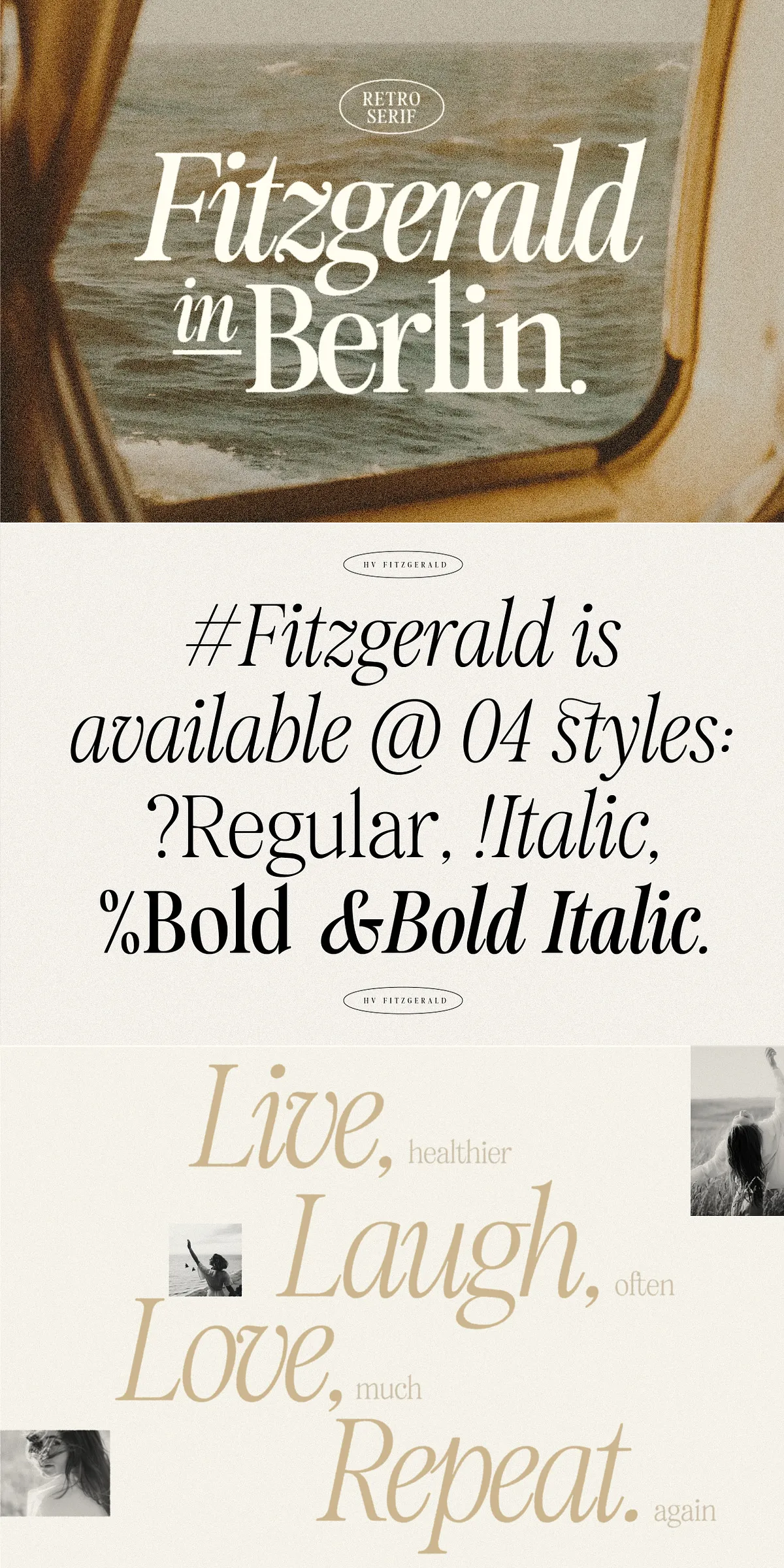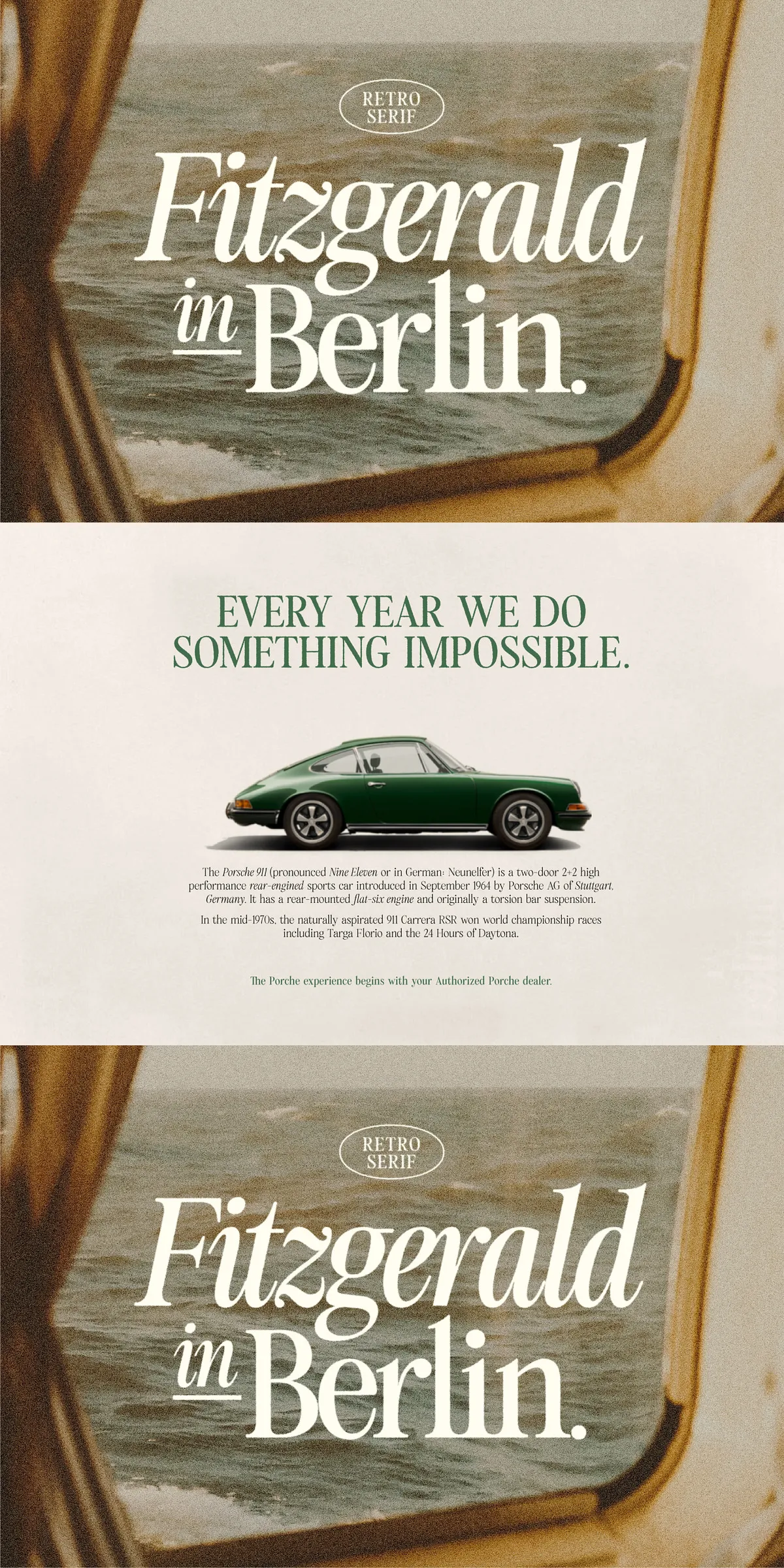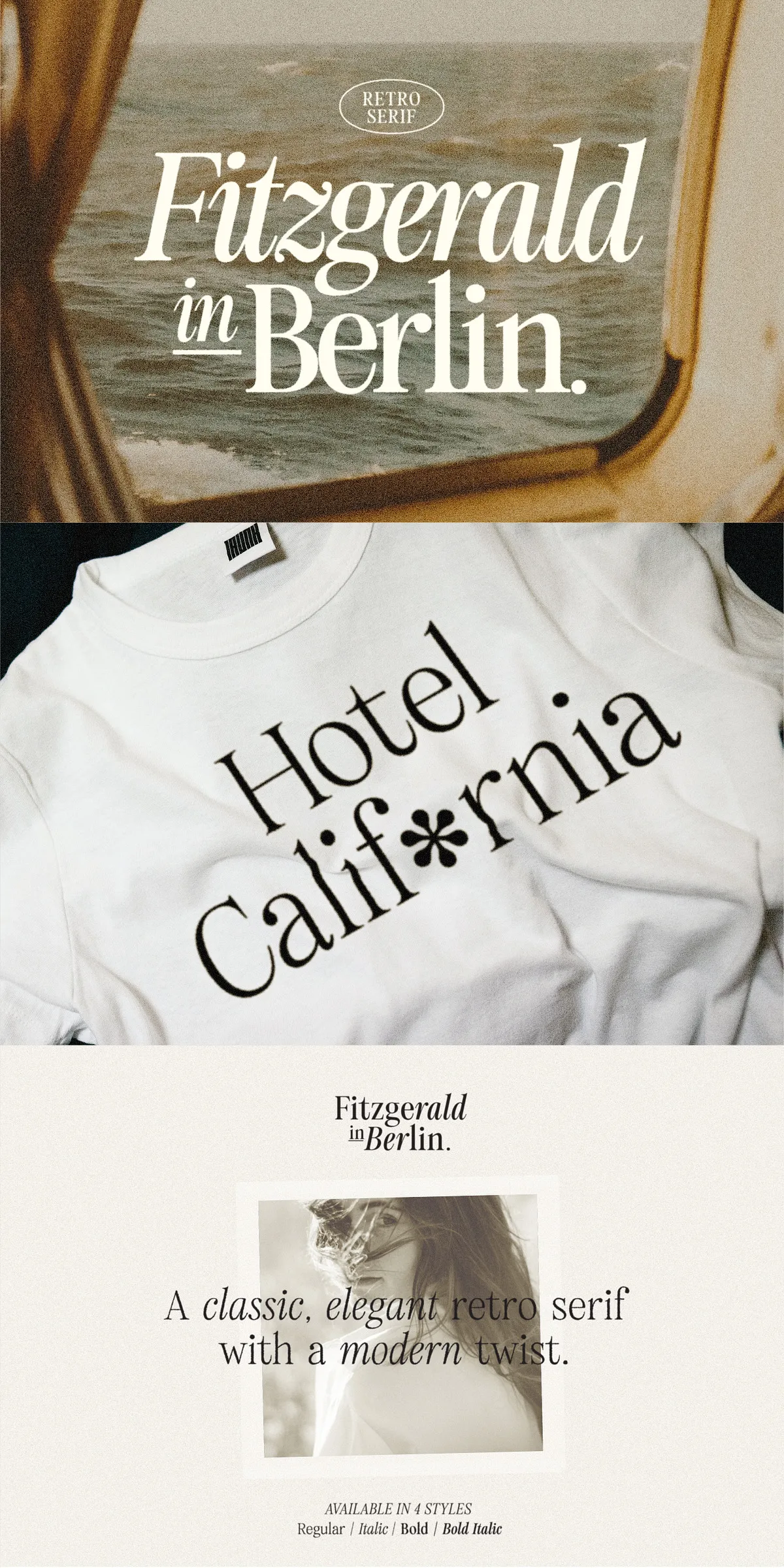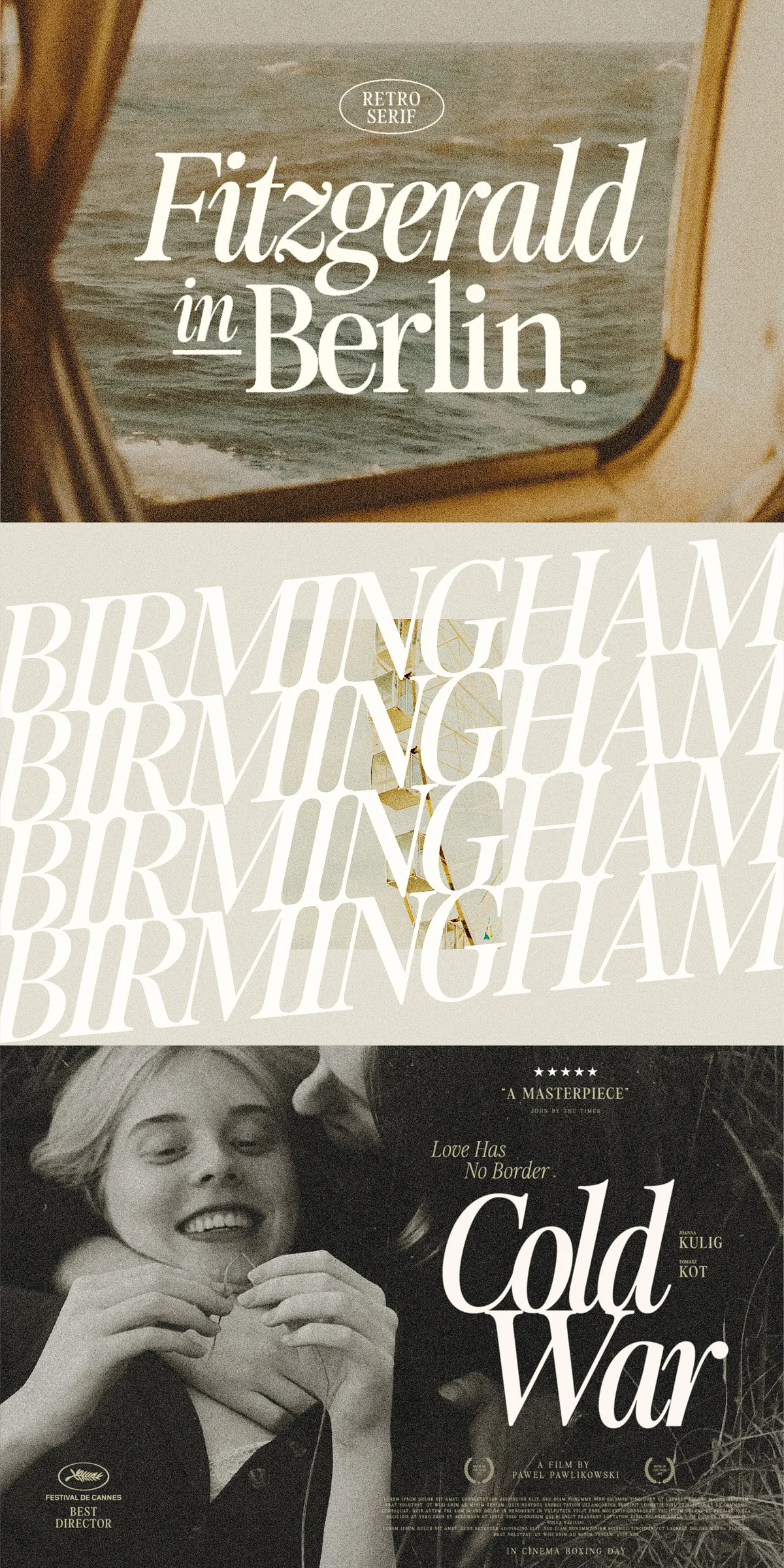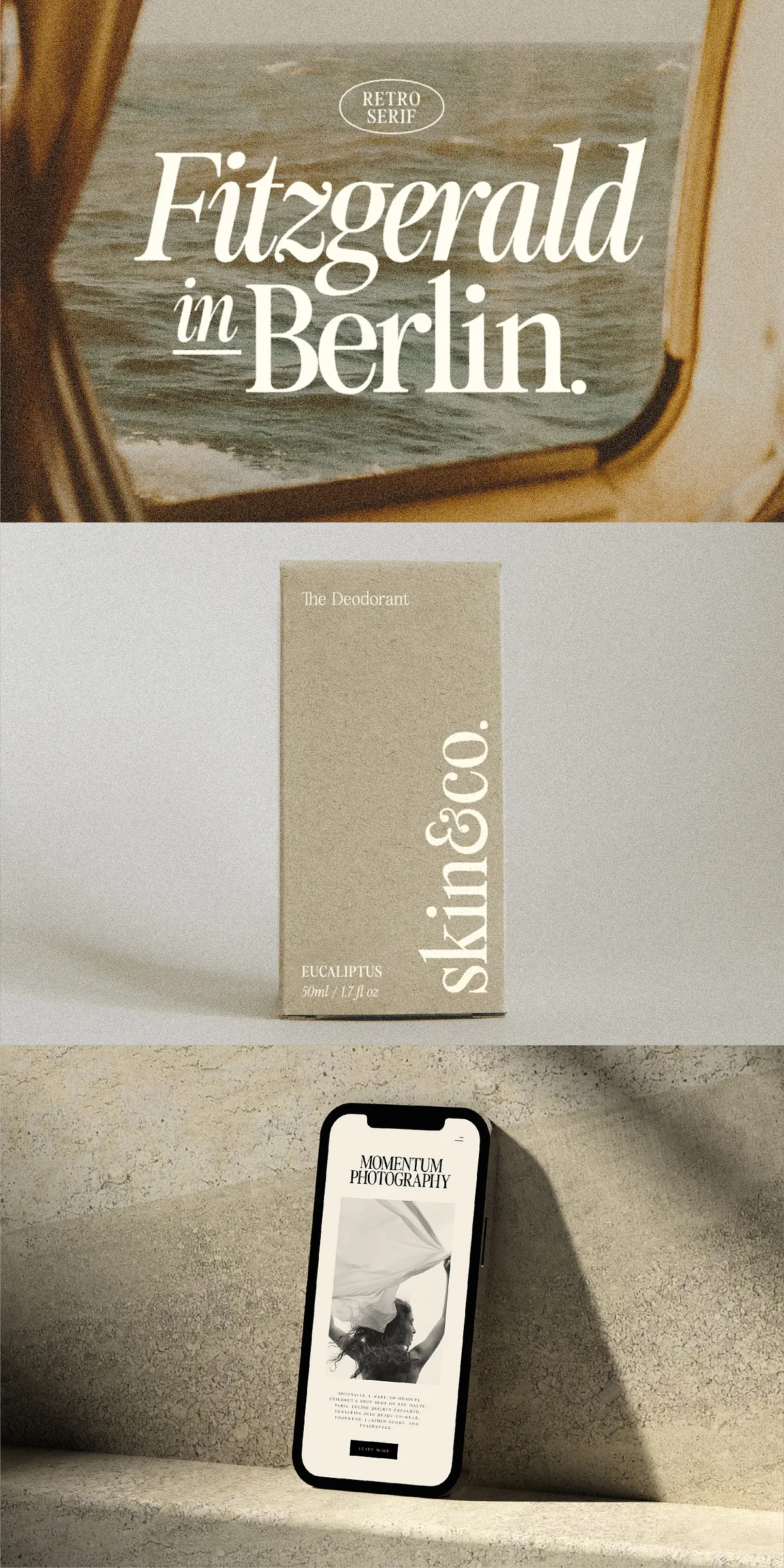
Fitzgerald – Classic Retro Serif
Step into the golden era of design with Fitzgerald — a bold fusion of classic elegance and modern precision. This retro serif font doesn’t just evoke nostalgia; it redefines it. Engineered for both high-impact displays and clean body text, Fitzgerald delivers outstanding readability without sacrificing personality. Whether you’re crafting bold headlines, editorial layouts, luxury packaging, or sleek logos, Fitzgerald commands attention with timeless sophistication.
Why Fitzgerald Is the Premier Choice for Retro-Inspired Design
Fitzgerald is more than a typeface — it’s a design statement. It draws inspiration from the sleek mid-century aesthetics making a global comeback, blending vintage charm with contemporary clarity. The result? A font family that feels familiar yet refreshingly forward-looking — ideal for brands and creatives who want to stand out without leaning too hard on clichés.
Fitzgerald’s Premium Font Collection: Every Style You Need
Empower your projects with the complete Fitzgerald family, including:
• Fitzgerald Regular — Clean, confident, and highly legible. Perfect as a base for body text or subtle headings.
• Fitzgerald Italic — Adds dynamic flair with gracefully slanted characters. Ideal for emphasis, quotes, and creative accents.
• Fitzgerald Bold — Amplifies impact with strong, structured strokes. Designed to dominate headlines and logos.
• Fitzgerald Bold Italic — The ultimate powerhouse combination: bold presence with elegant slant. Use for standout callouts and dramatic designs.
With full diacritic coverage, Fitzgerald ensures flawless typography across diverse linguistic contexts — making it perfect for international campaigns, multilingual publications, and global branding.
Unlock Advanced Typography Features for Professional Results
Fitzgerald isn’t just about style — it’s built for control. Leverage its OpenType features to elevate your design from good to exceptional:
Activate Ligatures and Stylistic Alternates
Use advanced typographic tools to create refined, custom-text look:
• Standard ligatures — for seamless, natural letter pairing (e.g., “fi”, “fl”, “ff”).
• Stylistic alternates — for alternative versions of specific characters to break visual monotony.
• Contextual alternates — automatically adjust based on surrounding letters for a more organic feel.
Perfect for Every Creative Application
For Branding & Logo Design
Create memorable, timeless logos that communicate elegance and heritage. The balanced structure of Fitzgerald conveys professionalism while subtly nodding to retro charm. Use it for startup branding, boutique labels, or luxury product lines.
For Packaging & Labeling
Give your products a premium feel. Fitzgerald’s sharp serifs and refined proportions elevate food packaging, beverage labels, skincare containers, and artisan goods — instantly signaling quality.
For Editorial & Print Design
Use Fitzgerald in magazines, book covers, newsletters, and brochures for a polished, authoritative look. Its readability ensures long-form content remains engaging and accessible.
For Digital & Web Experiences
Who Should Use Fitzgerald?
• Brand designers crafting vintage-inspired identities.
• Graphic artists developing editorial content with historical flair.
• Marketing teams building retro-themed campaigns.
• Web developers integrating elegant typography into responsive sites.
• Independent creators building premium product lines.